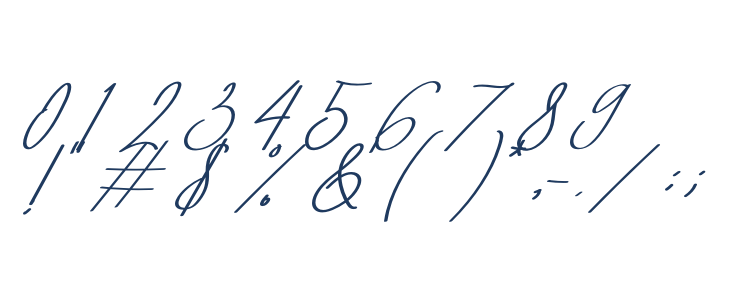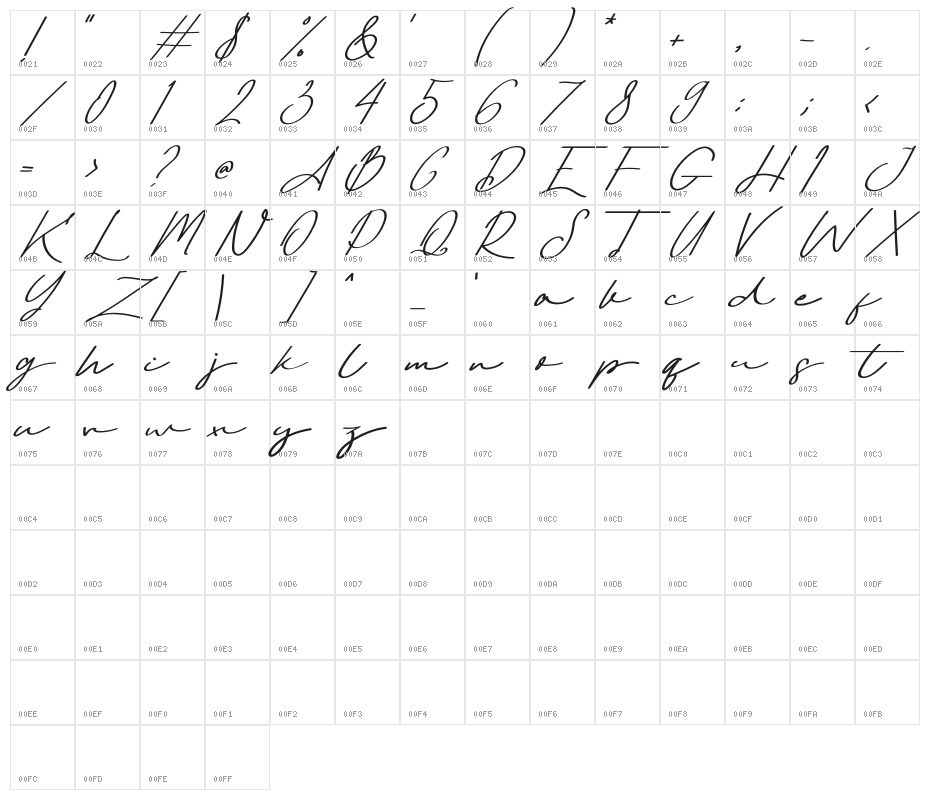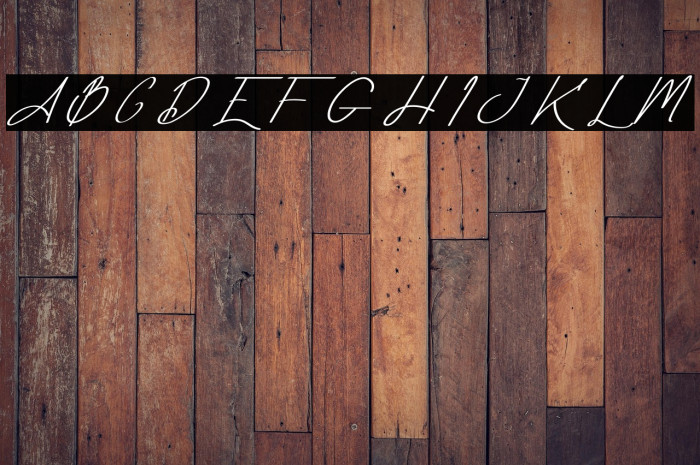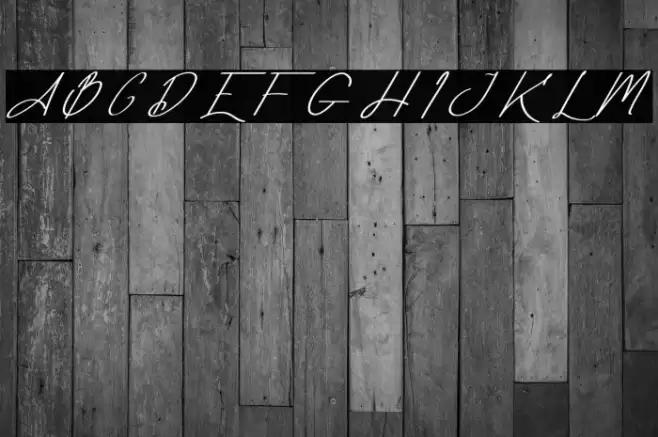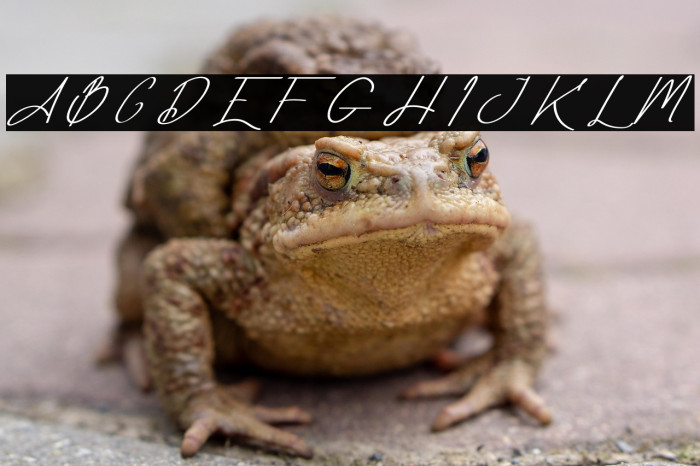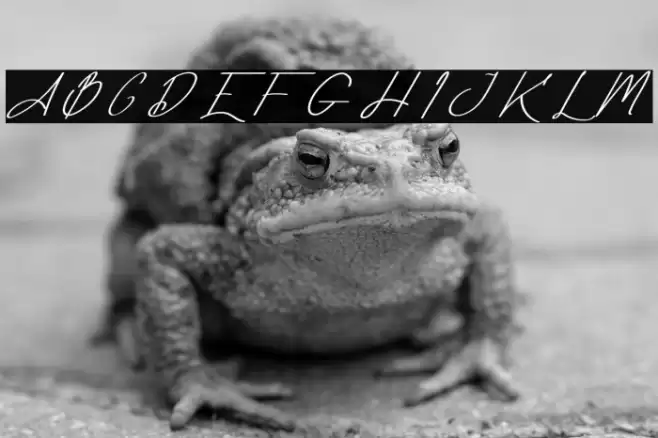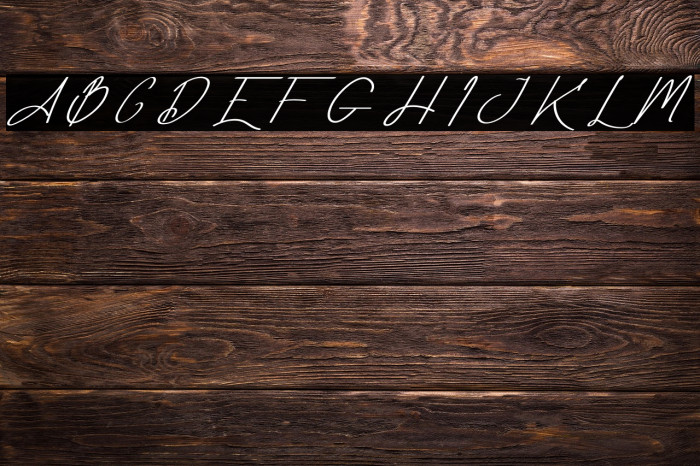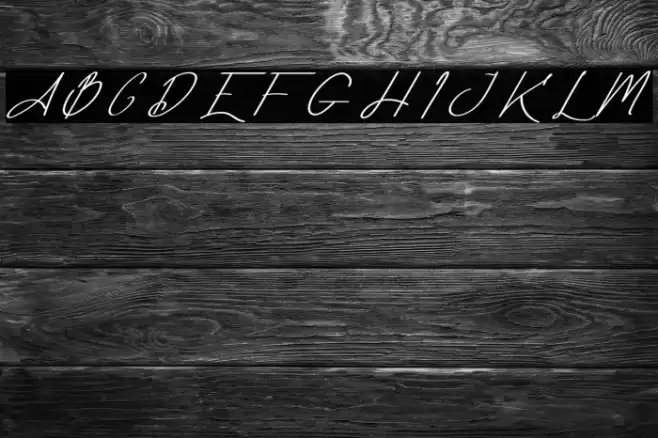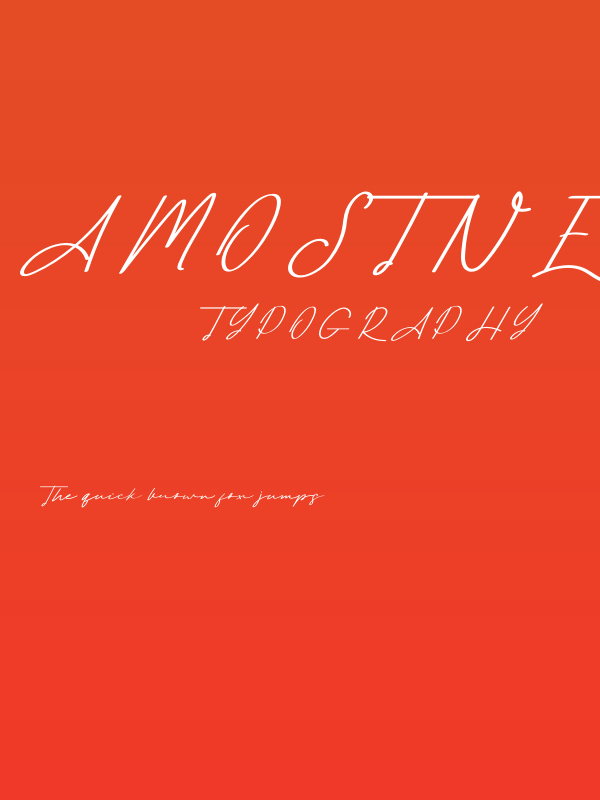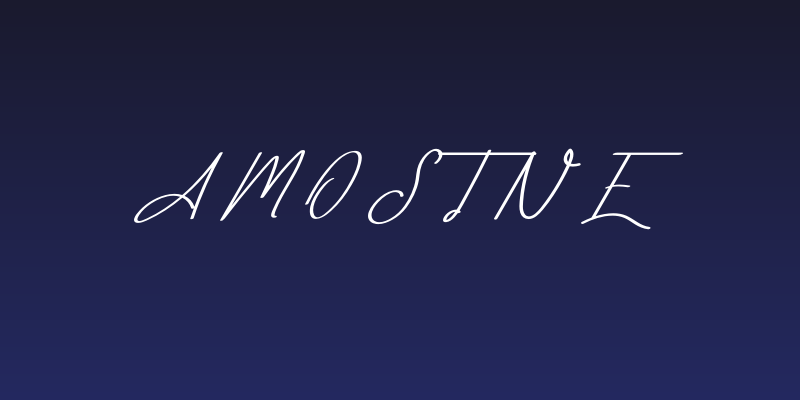
Amostne Font
Amostne Description
This elegant script font features a flowing, cursive style with smooth, continuous strokes that mimic the fluidity of handwriting. The uppercase letters are tall and slender, with graceful loops and curves, while the lowercase letters maintain a consistent slant, enhancing the overall cohesiveness of the design. The numerals are designed to match the script's style, offering a harmonious blend with the alphabet. Special characters are thoughtfully integrated, maintaining the font's sophisticated and stylish appearance. This font exudes a sense of elegance and refinement, making it ideal for projects that require a personal touch.
| Use Case | Logos, Invitations, Personal branding |
| Proposed Projects | Ideal for wedding invitations, greeting cards, personal branding, and elegant packaging designs. |